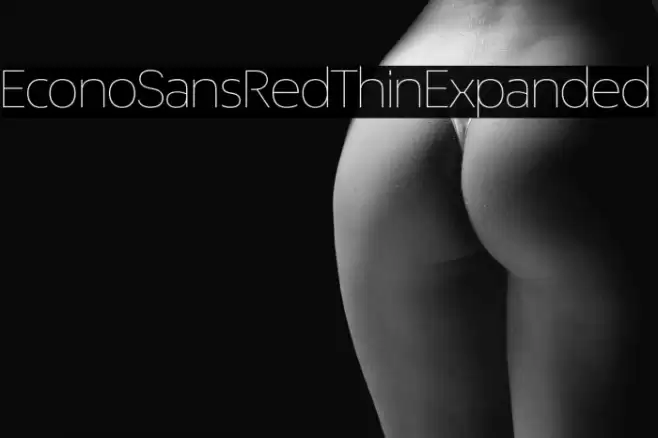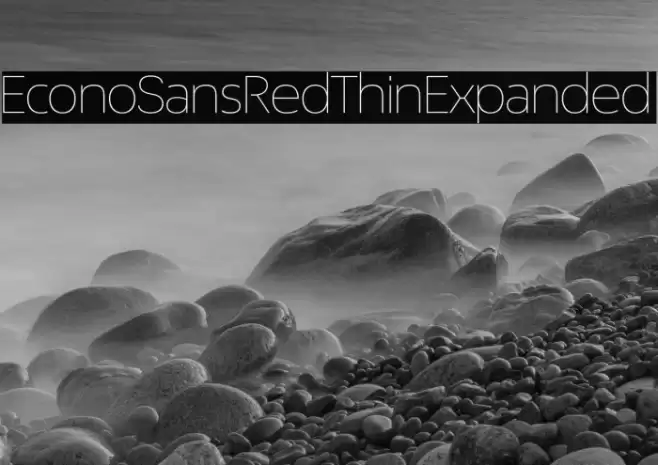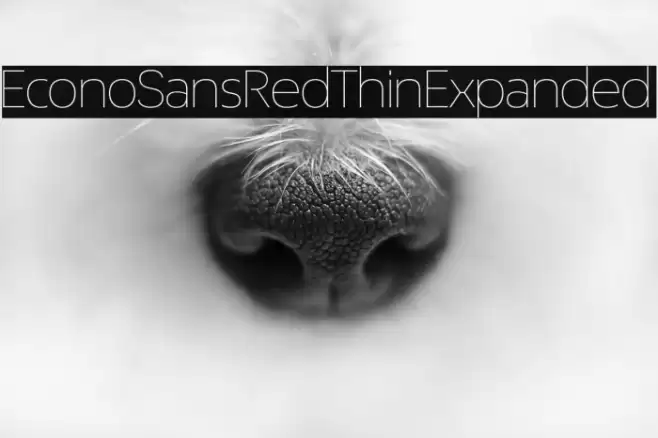
EconoSansRed-33ThinExpanded Font
EconoSansRed-33ThinExpanded Description
This font features a clean and modern sans-serif design with thin strokes and an expanded width. The characters are sleek and minimalistic, emphasizing clarity and readability. The uppercase and lowercase letters maintain a consistent geometric style, with smooth curves and straight lines. The numerals and special characters follow the same design principles, ensuring uniformity across all glyphs. This font's expanded width allows for a spacious and airy appearance, making it suitable for various design applications where a contemporary and open feel is desired.
A modern, thin, expanded sans-serif font with a clean and geometric style from Regular fonts.
- Proposed Projects: Ideal for branding, advertising, web design, and editorial layouts where a modern and open aesthetic is required.